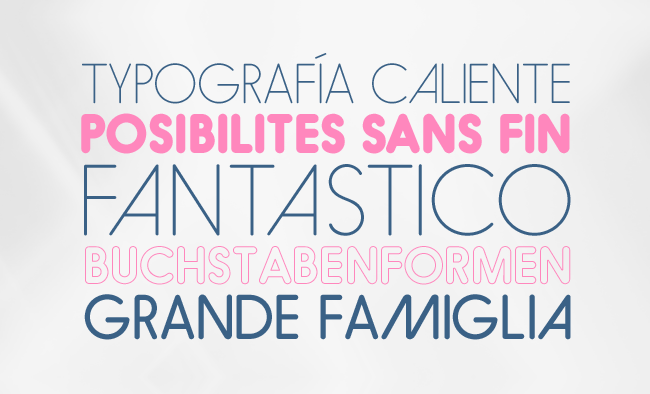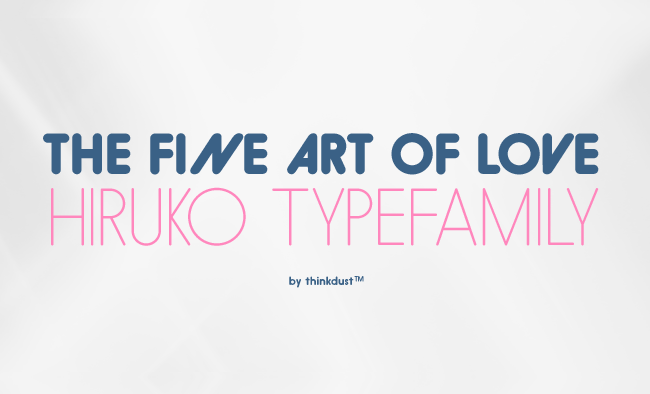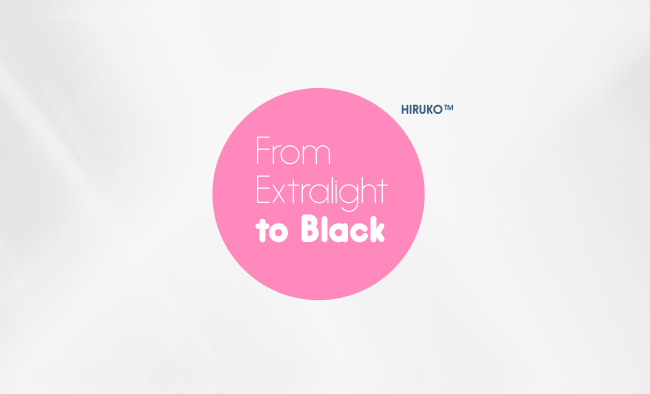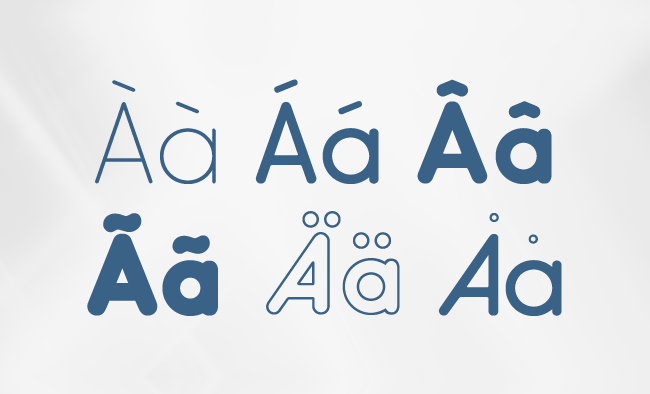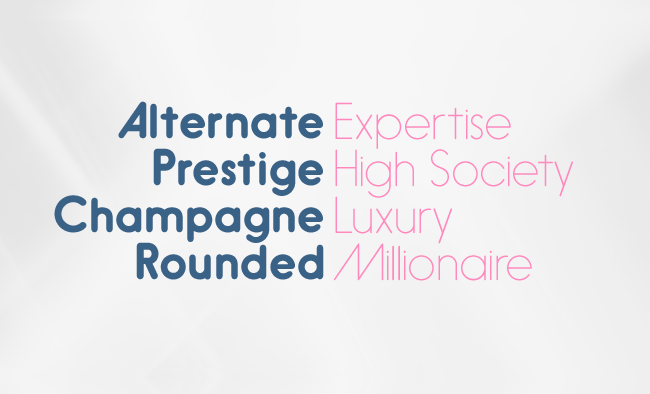
If you need a clean, modern font for your latest project. You should definitely check out the Hiruko Font Family. Inspired by Japanese culture, this font may be minimalistic in approach, but it screams classy fun in execution. And for a limited time only, Hiruko is incredibly marked down in price!
Hiruko Font Family Highlight
• Full Family of 15 Styles
Based on the Sans-Serif font, the Hiruko Family includes 15 different styles. There's Extra Light, Extra Light Alternate, Extra Light Italic, Light, Light Alternate, Light Italic, Regular, Regular Alternate, Regular Italic, Black, Black Alternate, Black Italic, Outline, Outline Alternate, and Outline Italic.
• Multiple Languages
This cutting-edge modern font family supports over 40 languages, so whatever country you're working with, you're sure to find the appropriate way to express yourself.
• Full Character Set
Each type weight includes a full 255 character set, as well as manual kerning, pairs, and tracking.
• Attention Getting
Hiruko is a fabulous font that's just perfect for any trendsetting-type projects. It works beautifully on its own, whether decked out on a T-shirt, poster, menu, sign and more!